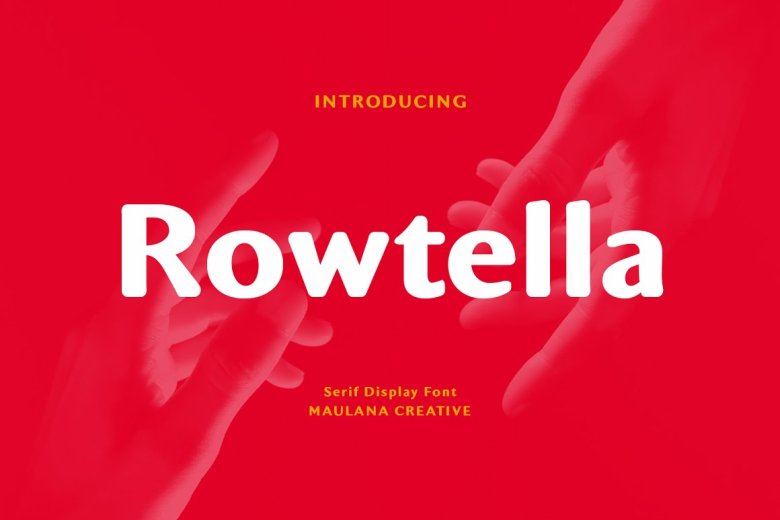
Rowtella is a Display Flare serif typeface. The font’s varied usage, fun character, and additional ligatures and alternates are all part of this. So you can work more creatively. Rowtella font Multilingual feature also helps you make any project easier and fun. Meet your creative business wit Rowtella font.
It’s a good fit for a logo design, Social media post, creative work with vibrant and fall, movie titles, books titles, a short letter text capacity even a long text capacity and good for your secondary text font with script or serif. Make an exciting work with Rowtella font.
Rowtella Serif Display Font